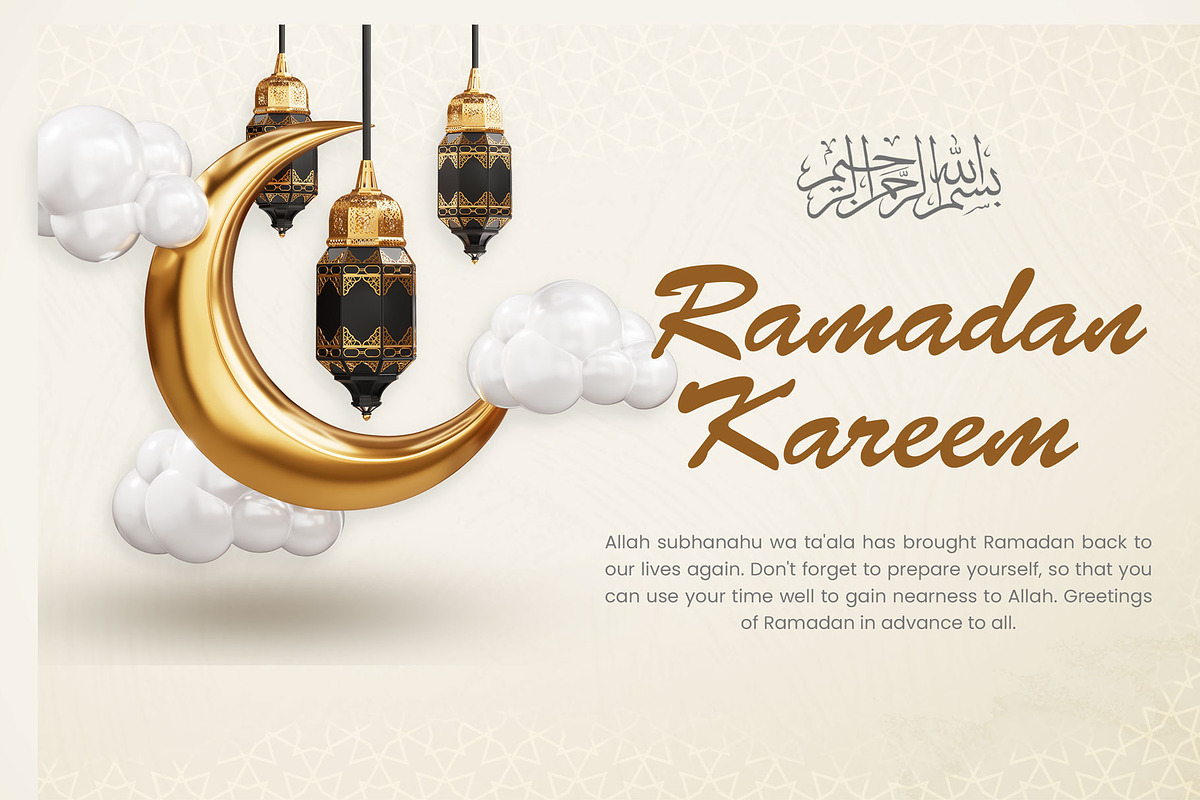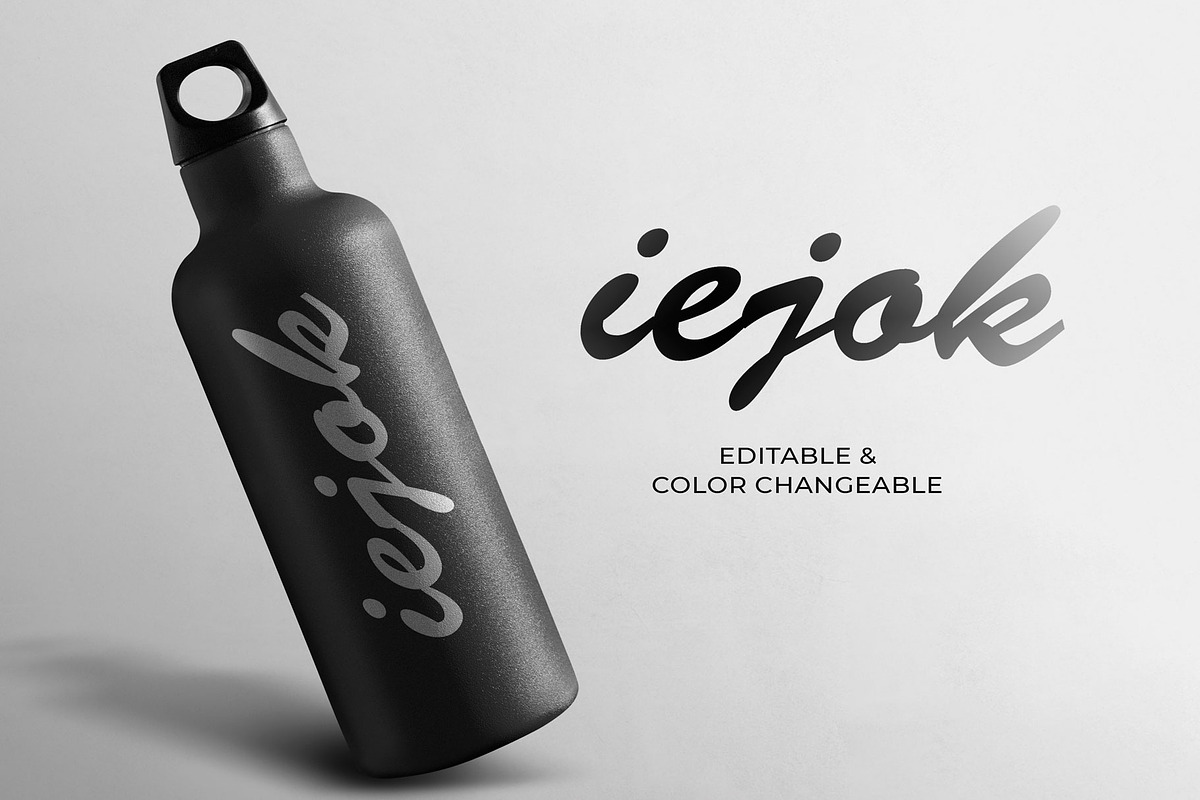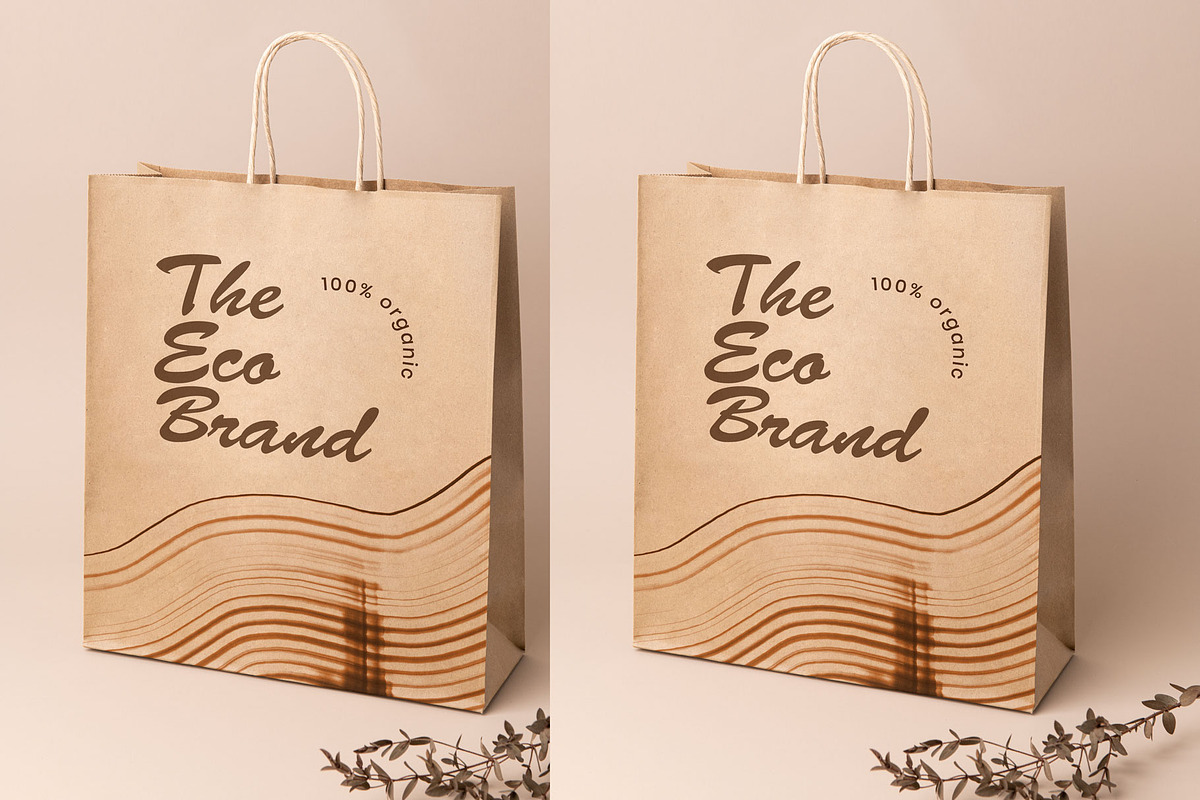
San Script Font
San Script is a handwritten brush script with fun, life, love and attention to detail. It’s ideal for logos, titles, product packaging, and merchandise. Your download will include the following files in TTF & OTF format.